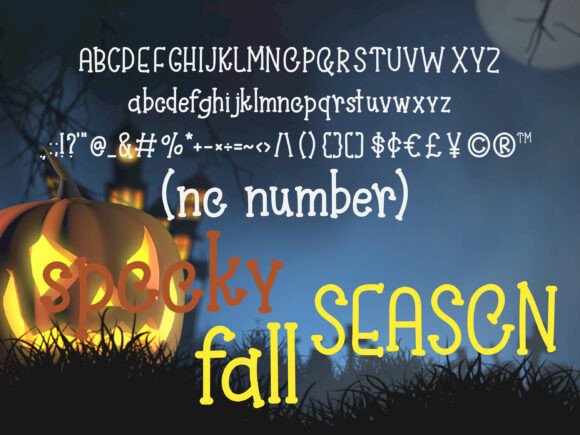
Unleash the Spooky Spirit with Halloween Font: A Perfect Blend of Scary and Cute
Halloween is just around the corner, and with it comes the excitement of creating spooky and fun designs for various projects. Whether you’re a designer, crafter, or DIY enthusiast, you know how important it is to have the right font to set the tone for your creations. That’s where the Halloween Font comes in – a spooky and handwritten font that’s perfect for adding a scary and cute decorative touch to your designs.
What Makes Halloween Font So Special?
Halloween Font is a unique and creative font that’s specifically designed to capture the essence of Halloween. Its handwritten style gives it a personal and playful touch, making it perfect for a wide range of design projects, from book covers and children’s books to comics, posters, packaging, merchandise, and more.
With Halloween Font, you can add a spooky and cute touch to your designs, making them stand out from the crowd. The font’s scary and decorative theme is sure to inspire your creativity, allowing you to come up with innovative and eye-catching designs that will leave a lasting impression on your audience.
Halloween Font is a versatile font that’s perfect for designers and crafters alike. Whether you’re creating a book cover, poster, or merchandise, this font is sure to add a touch of personality and whimsy to your designs.
For designers, Halloween Font is a great addition to your font library, allowing you to create unique and eye-catching designs that will set your clients apart. For crafters, this font is perfect for creating handmade cards, gift tags, and other DIY projects that require a personal touch.
Use Cases for Halloween Font
Halloween Font is a versatile font that can be used for a wide range of design projects, including:
• Book covers: Add a spooky and cute touch to your book covers, making them stand out from the crowd.
• Children’s books: Create fun and engaging illustrations for children’s books that will delight kids and parents alike.
• Comics: Add a playful and creative touch to your comics, making them more engaging and entertaining.
• Posters: Create eye-catching posters for Halloween events, parties, or promotions.
• Packaging: Add a personal touch to your packaging designs, making them more unique and memorable.
• Merchandise: Create fun and spooky designs for Halloween-themed merchandise, such as t-shirts, mugs, and more.
• Logotypes: Use Halloween Font to create unique and memorable logotypes for your business or brand.
Halloween Font is a spooky and handwritten font that’s perfect for adding a scary and cute decorative touch to your designs. With its unique and creative style, this font is sure to inspire your creativity and help you create eye-catching designs that will leave a lasting impression on your audience.